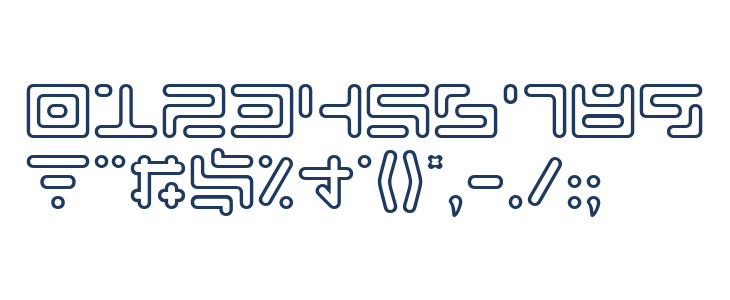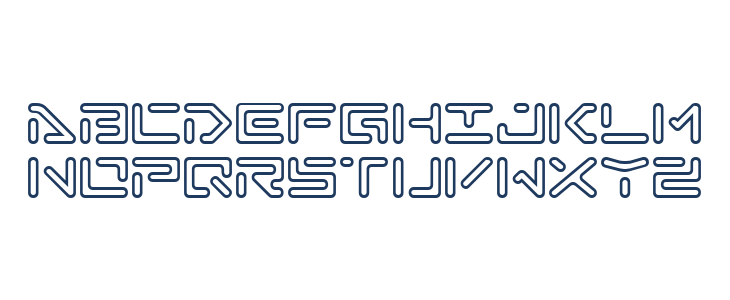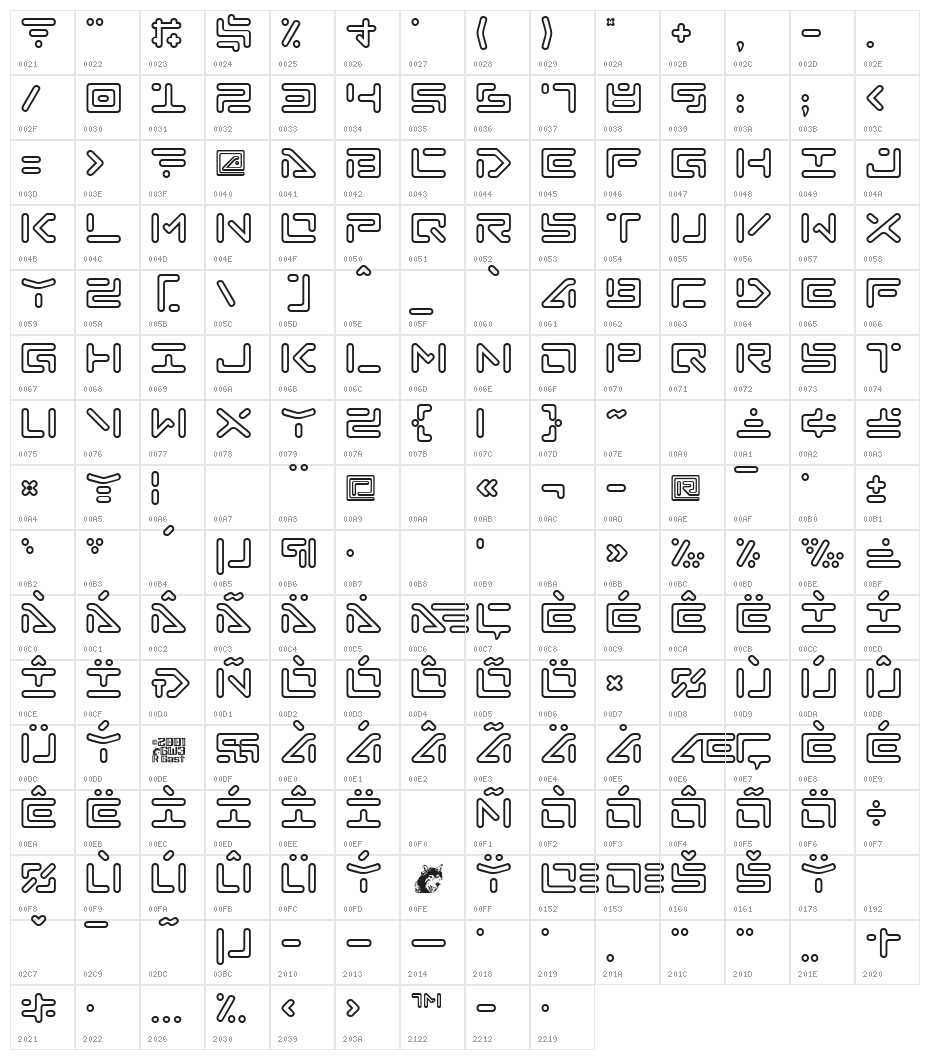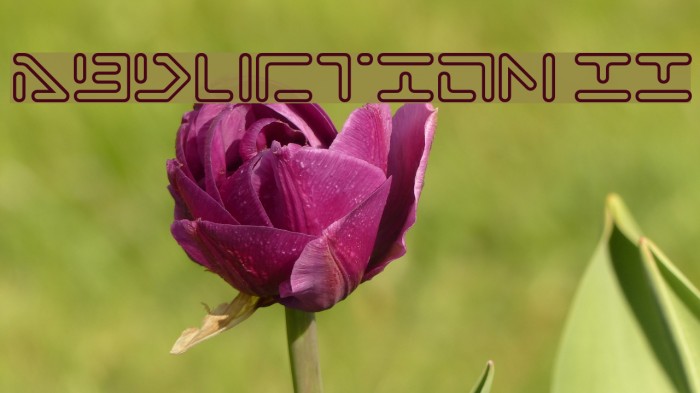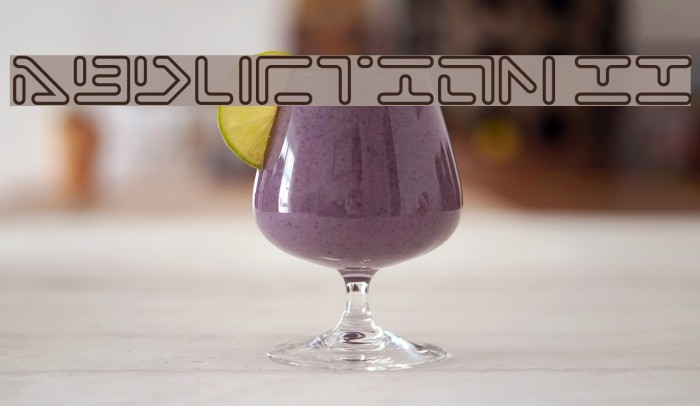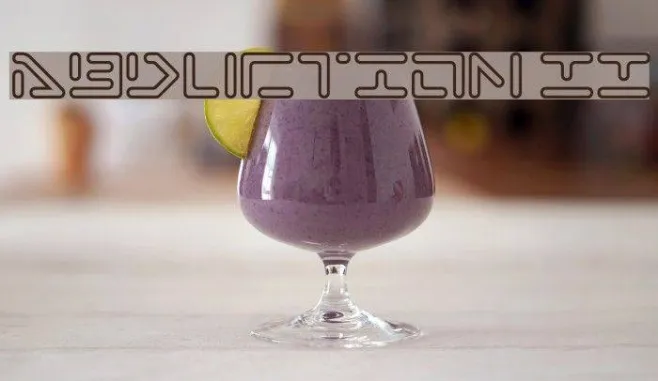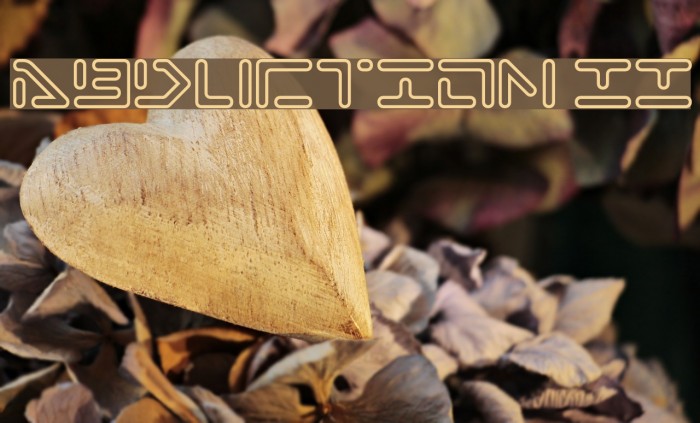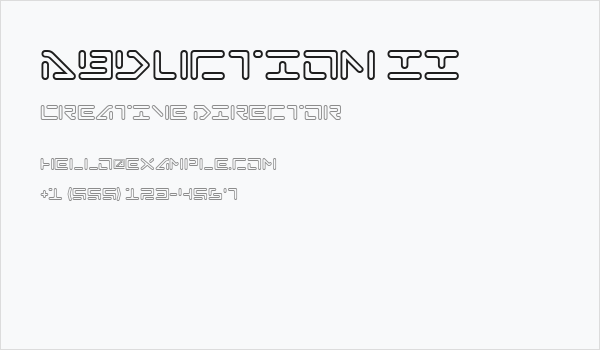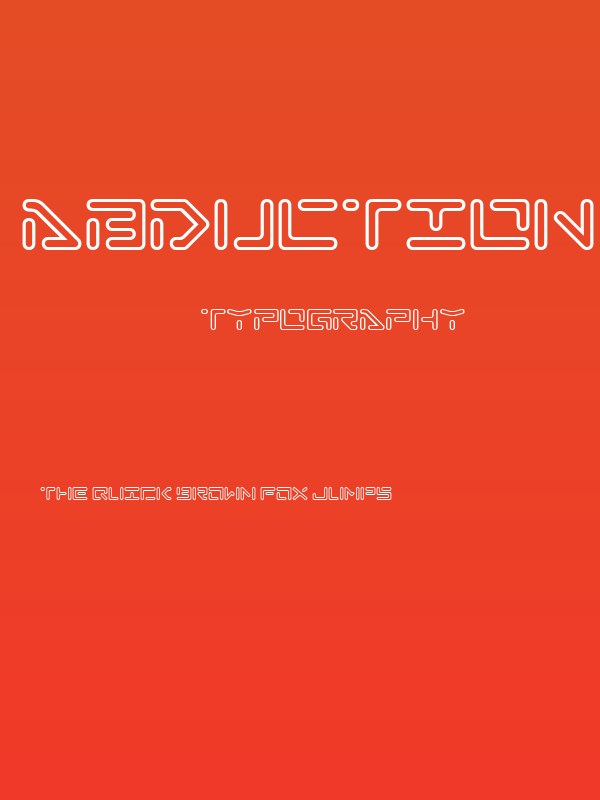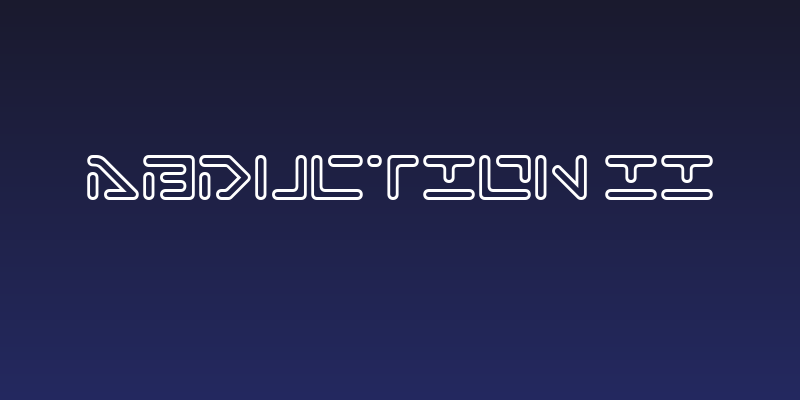
Abduction II Font
Abduction II Description
This font features a futuristic and geometric design, characterized by its bold, interconnected lines and rounded edges. Each character is crafted with a continuous outline that creates a sense of movement and flow. The font's unique style is reminiscent of digital or sci-fi themes, making it stand out with its distinctive appearance. The uppercase and lowercase letters maintain a consistent design, enhancing the overall cohesion. The numerals and special characters are equally stylized, ensuring uniformity across all glyphs. This font's design is both modern and playful, suitable for creative and innovative projects.
| Proposed Projects | Ideal for sci-fi themed designs, digital artwork, video game graphics, and innovative branding projects. |